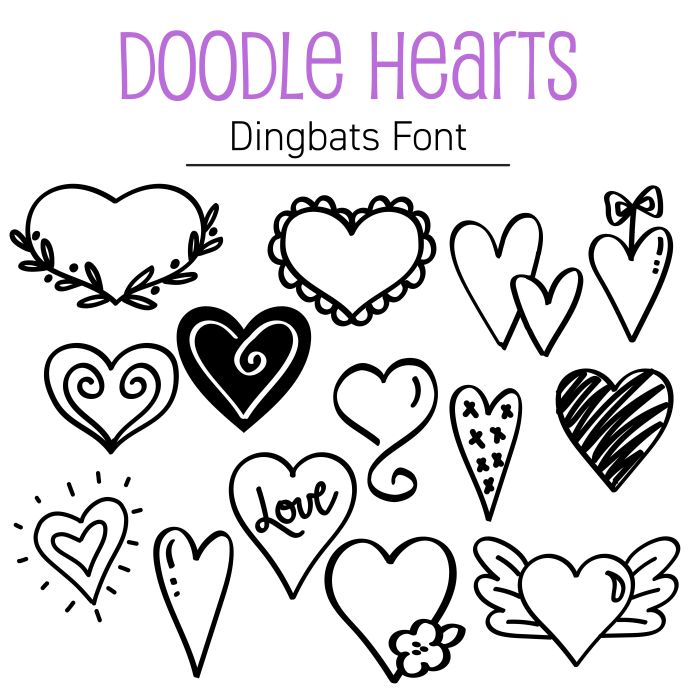
Doodle Hearts Dingbats Font is a whimsical collection of hand-drawn heart icons, perfect for adding sweet, playful charm to all your creative projects. Designed for easy use in Silhouette Studio, and other cutting machines, this .TTF dingbat font includes a variety of quirky heart shapes, swirls, and decorative love-themed doodles. Each icon is vectorized, ensuring crisp, scalable designs for vinyl crafts, cards, stickers, wedding decor, and more. Just type a letter to insert a design—no tracing or cleanup needed! Ideal for Valentine’s Day, anniversaries, and romantic projects, these heart dingbats make crafting quick, easy, and adorable.